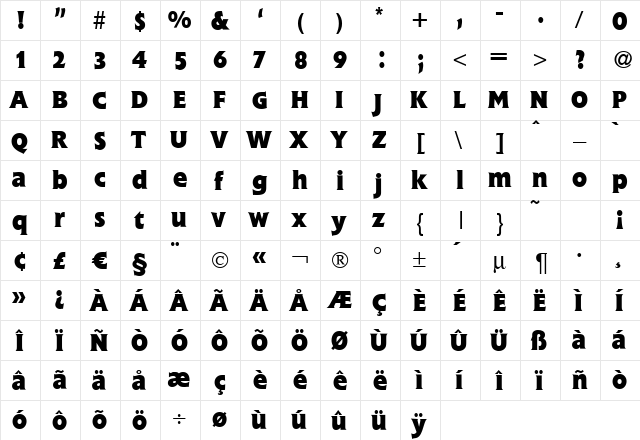
Fleming-Heavy Regular
Design Context for Fleming-Heavy Typeface
Fleming-Heavy is a composed and adaptable typeface that performs quietly and consistently across a wide range of design contexts.